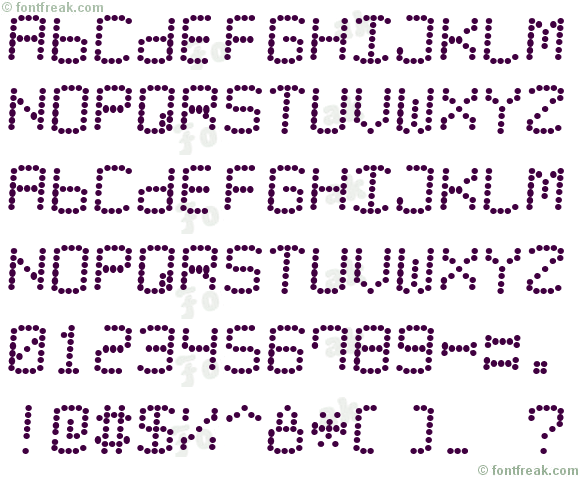
LED Counter Plus 7 Italic
LED Counter Plus 7
The LED Counter Plus 7 Italic font by Style-7 is a striking display typeface that embodies a modern, digital aesthetic. This font falls into the decorative category, characterized by its unique representation of an LED-style display. The stroke weight is consistent, giving it a uniform appearance, while the dots that form each character create a playful yet technological vibe. The spacing between the letters is carefully balanced, enhancing legibility while maintaining a compact design that mimics electronic counters.
This font is particularly well-suited for a variety of creative projects. It's an excellent choice for digital signage, where a high-tech look is essential. Additionally, it can be effectively used in event promotions, such as tech conferences or gaming tournaments, where it can capture the attention of a youthful audience. The LED Counter Plus 7 Italic also works well on product packaging for electronic gadgets, giving them a modern flair. Furthermore, it can be used in branding for tech startups, adding a contemporary touch that speaks to innovation and forward-thinking.
The target audience for this font includes graphic designers, small business owners, and content creators who are looking to infuse a modern, high-tech feel into their visual projects. Whether you are designing a website, creating marketing materials, or crafting visual identities, this font offers versatility and a distinct style.
What sets the LED Counter Plus 7 Italic font apart is its ability to blend functionality with a unique aesthetic. Its digital appearance is not only eye-catching but also evokes a sense of modernity that resonates with today’s tech-savvy consumers. For those interested in enhancing their design toolkit, the LED Counter Plus 7 Italic font free download is an excellent addition that promises to elevate any project.